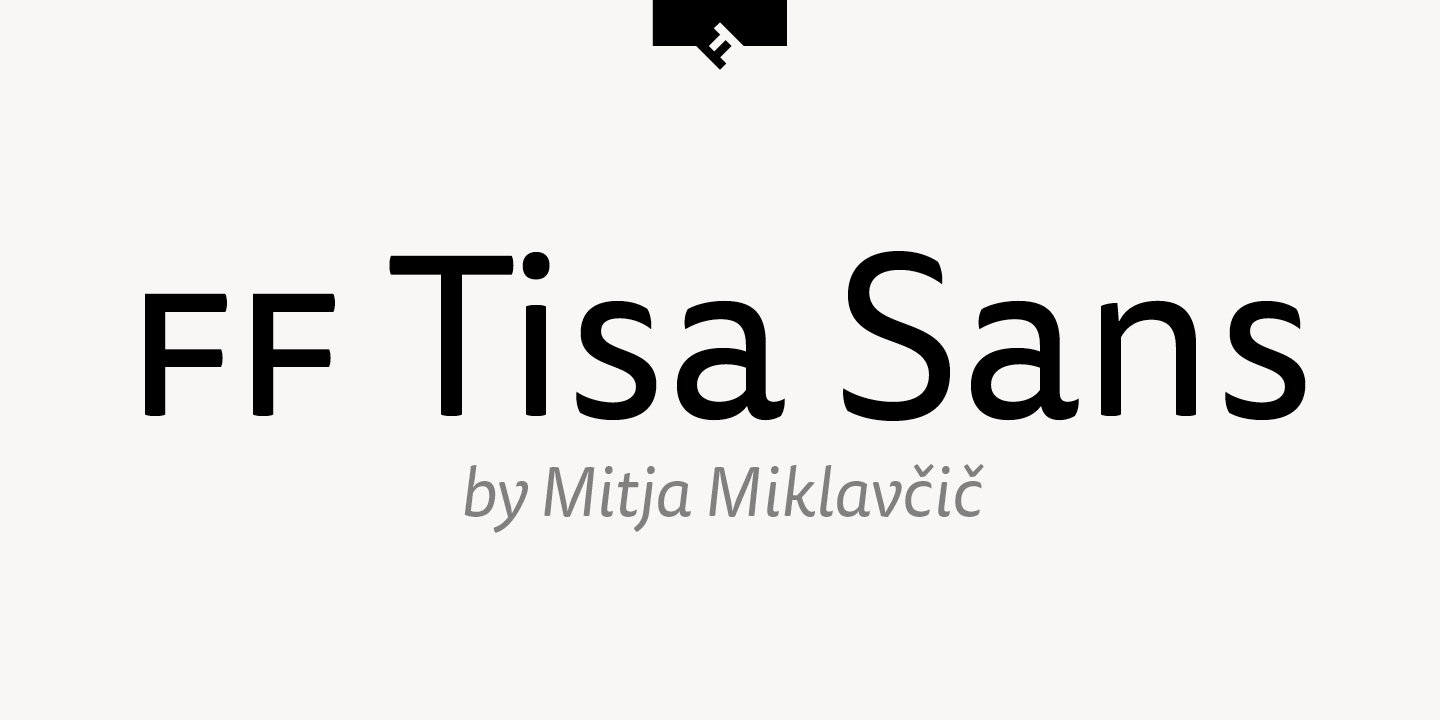
This humanist sans-serif typeface is perfect for editorial design, book publishing, digital reading platforms, academic journals, corporate communications, web typography, long-form content, professional documents, and readable logo design.
FF Tisa Sans Font brings excitement to your design projects with its exceptional readability and humanist warmth. This sophisticated sans-serif font features carefully crafted letterforms that optimize reading comfort across all media, making it perfect for publications and organizations that prioritize user experience and content accessibility. The font's friendly character and superior legibility ensure effortless reading while maintaining professional authority.
The FF Tisa Sans Font family includes thin, light, regular, medium, bold, and heavy weights, plus their corresponding italic styles. This extensive range provides designers with complete typographic flexibility for creating comfortable reading experiences that engage audiences across print, digital, and mobile platforms.
The optimized letterforms ensure consistent reading comfort across all content applications. Download FF Tisa Sans Font now and prioritize reader experience with this humanist typography solution that makes every word accessible and every paragraph a pleasure to read with uncompromising clarity.